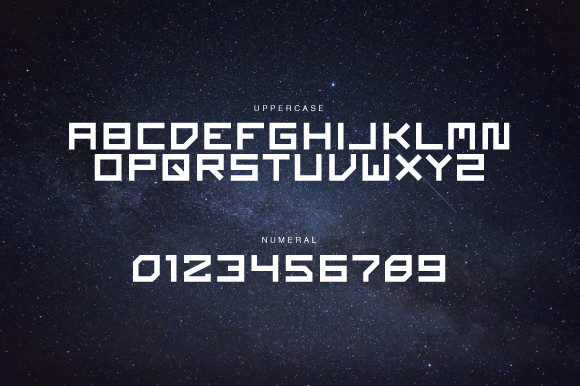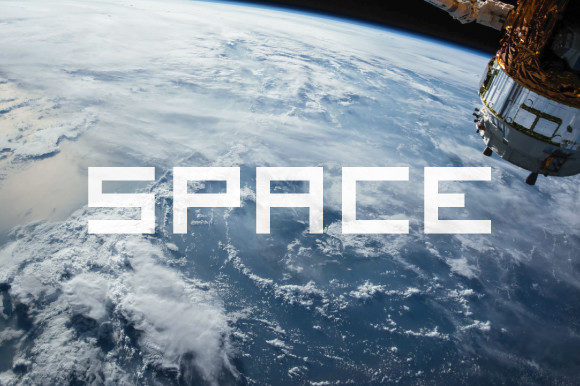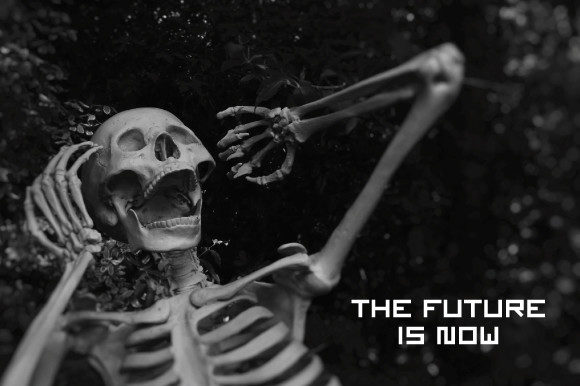
Introduction to Poram Font
As designers, we’ve all been there – staring at a blank canvas, desperately seeking that perfect font to bring our creative vision to life. It’s that moment of epiphany, when everything falls into place, and our project transforms from bland to grand. For many of us, that moment came with the discovery of the Poram Font – a cool, bold, and robotic display font that adds a unique touch to any design.
Whether you’re working on a web design, business card, or any other creative project, Poram Font is an invaluable design resource. Its high-quality design makes it perfect for applications that require a transparent background or a bold statement. And the best part? It’s available for free download, making it accessible to designers of all levels.
- High-quality design: Poram Font is a premium design resource that offers a unique and stylish aesthetic, perfect for creative projects.
- Unique characteristics: This font features a unique and creative design, making it perfect for designers who want to add a touch of personality to their projects.
Honest Review: Poram Font
I recently had the chance to work with the Poram Font for a creative project, and I must say it’s a high-quality addition to any design resource.
One of the things that stands out about Poram Font is its transparent background, making it perfect for layering and combining with other design elements. ✨ The font itself is modern and sleek, with a unique aesthetic that can elevate any design project.
- Transparent background for easy layering
- Modern and sleek aesthetic
- May not be suitable for traditional or conservative designs
- Not as extensive a character set as some other fonts
- May require additional styling to achieve desired look
Overall, I’m impressed with the Poram Font, and I think it’s a great addition to any design resource. While it may have some limitations, it’s definitely worth checking out for your next creative project. ⚠️
Poram Font is a high-quality, free design resource ideal for creative projects requiring a unique and stylish touch. Its transparent background makes it a versatile choice for various design applications.
Getting the Most Out of Poram Font
To get the most out of Poram Font, use it in combination with other design elements to create a visually appealing design. Experiment with different font sizes, colors, and styles to find the perfect balance for your project.
Poram Font is ideal for use in creative projects such as logos, business cards, brochures, and social media graphics. Its unique design and transparent background make it a great choice for adding a touch of style to your designs.